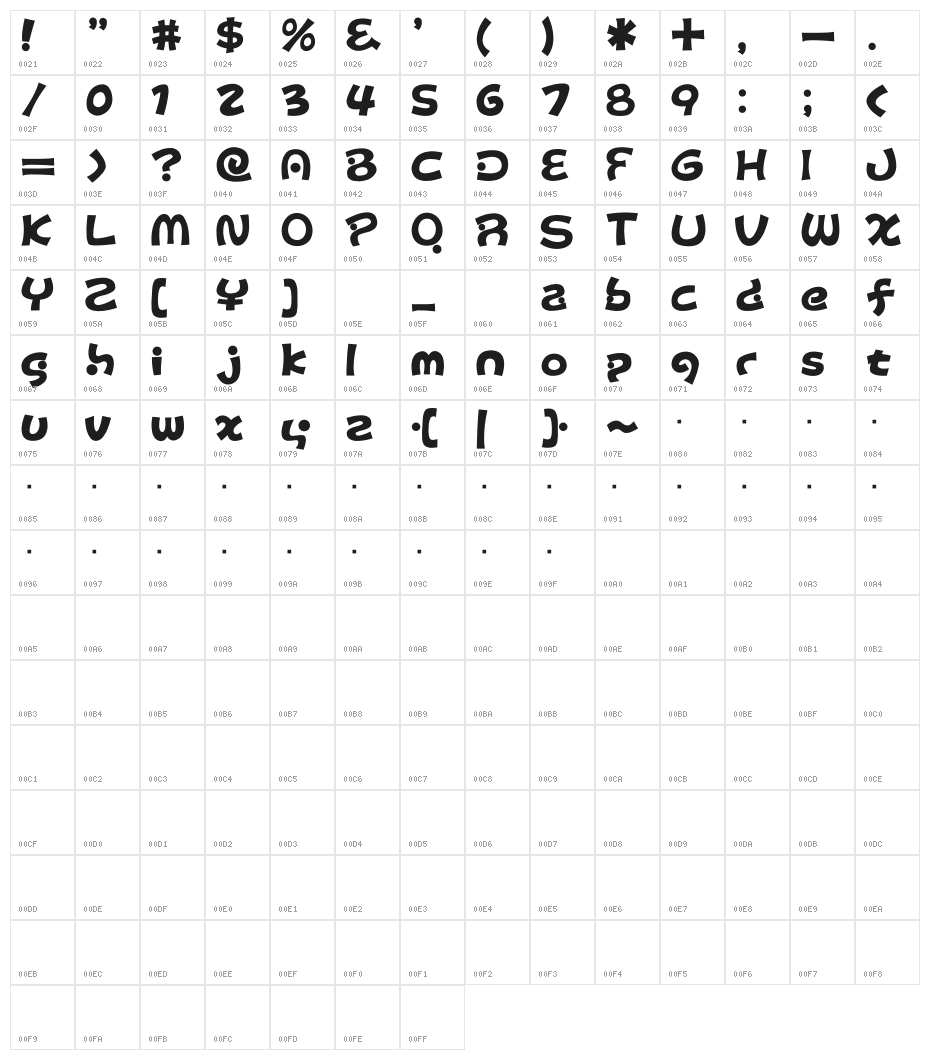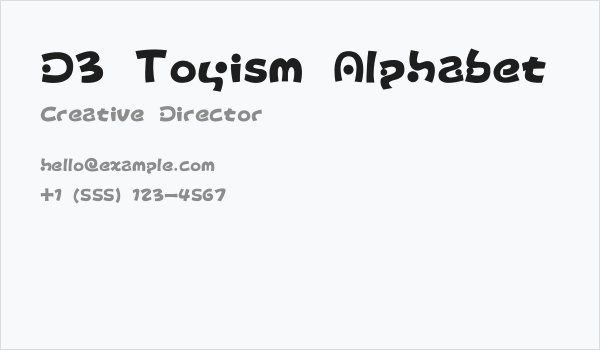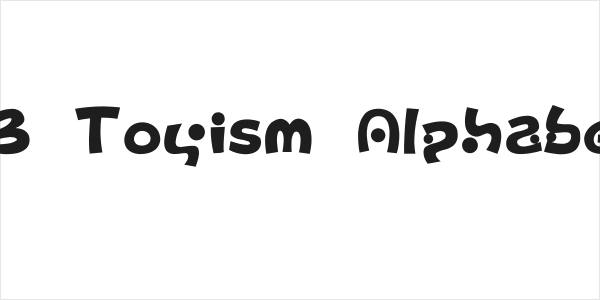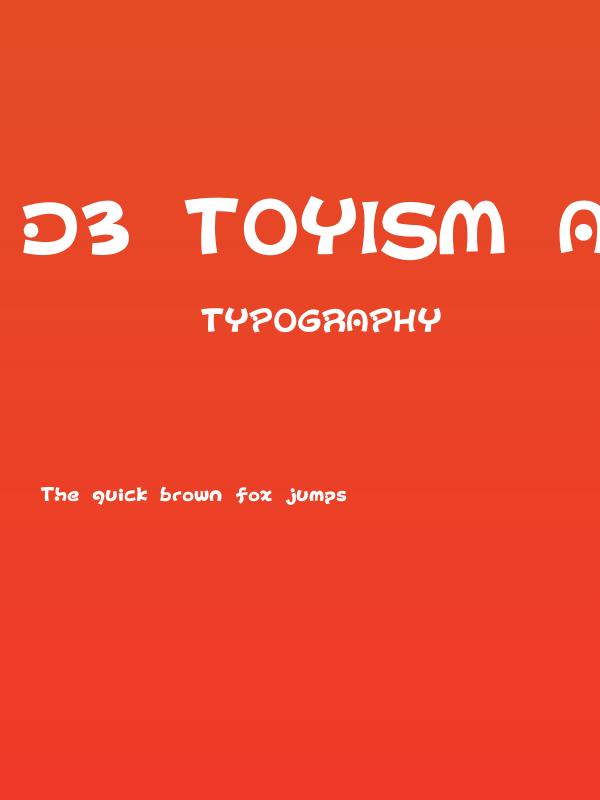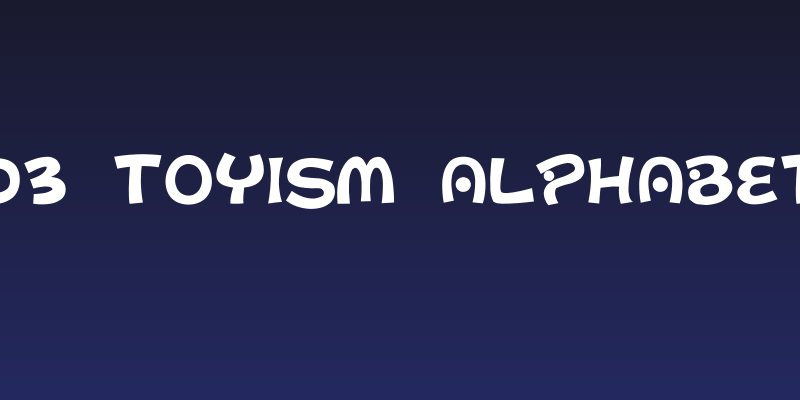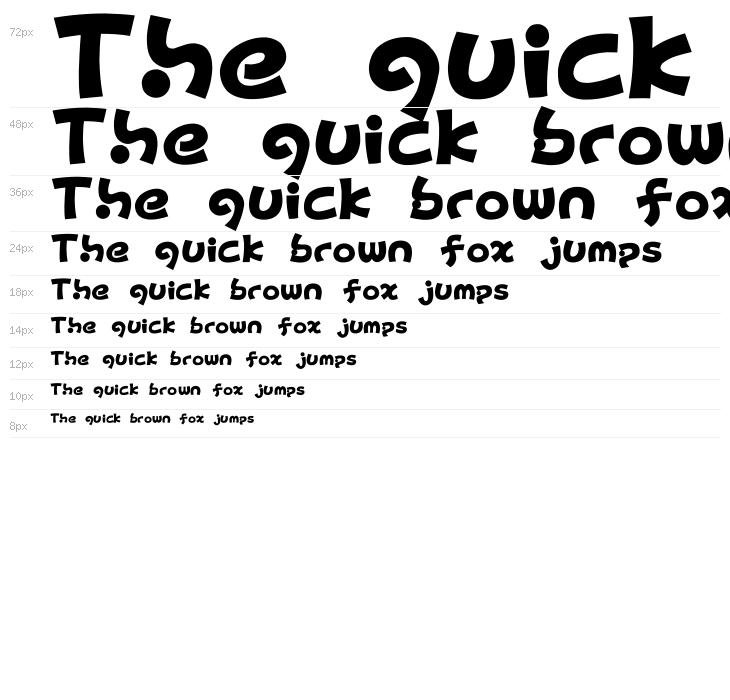
D3 Toyism Alphabet Font
D3 Toyism Alphabet Description
This font features a playful and whimsical design, characterized by its bold and rounded letterforms. The characters exhibit a unique blend of curves and angles, creating a lively and dynamic appearance. The uppercase and lowercase letters maintain a consistent style, with a slight tilt that adds to the font's energetic feel. Numbers and special characters are designed to match the overall aesthetic, ensuring a cohesive look across all text elements. The font's distinctive style makes it ideal for creative and informal applications.
| Proposed Projects | Ideal for children's books, playful branding, posters, and creative projects. |